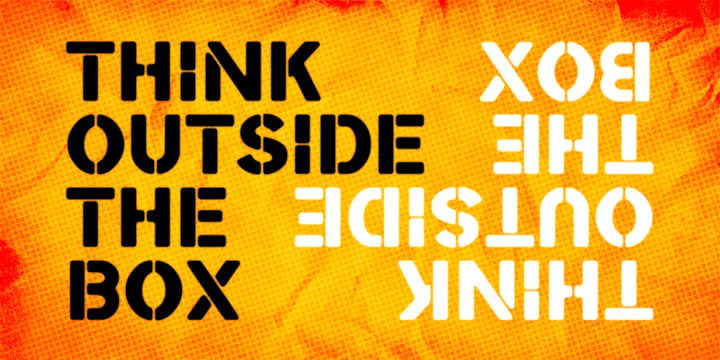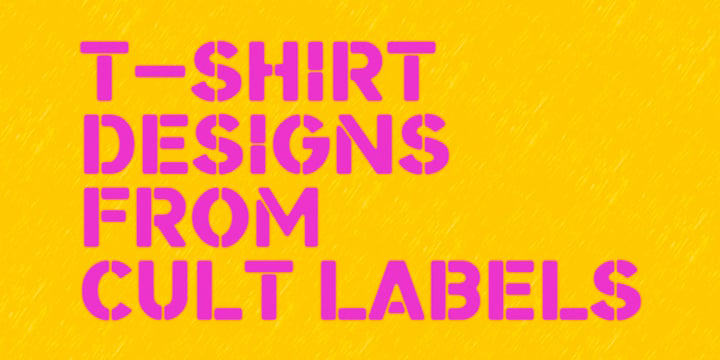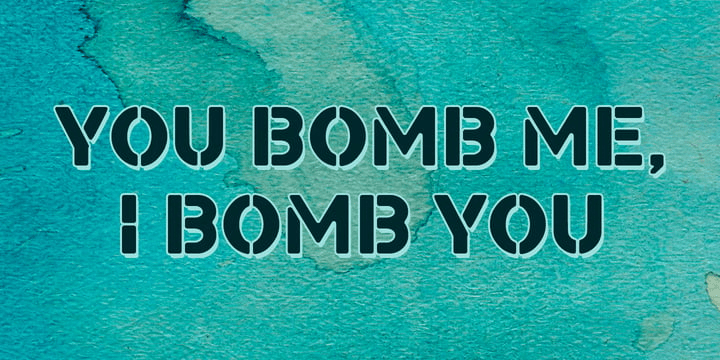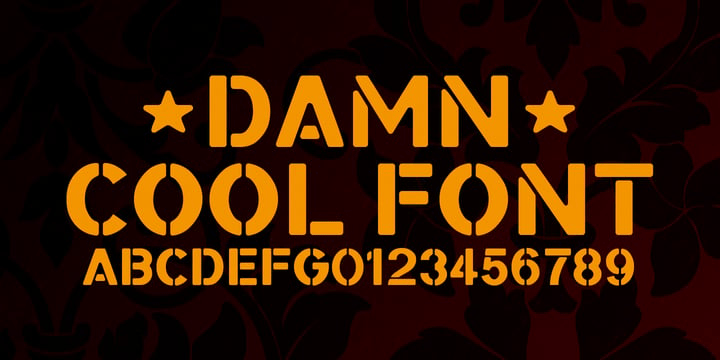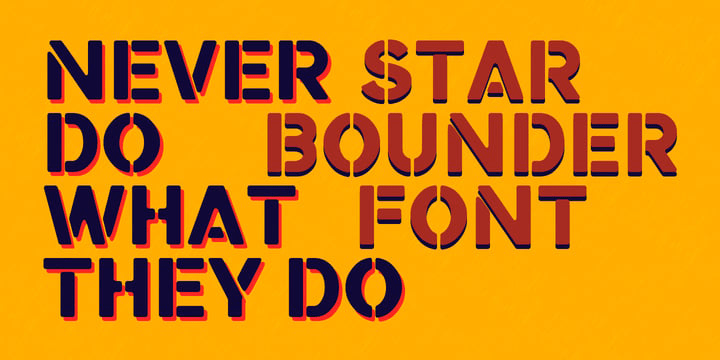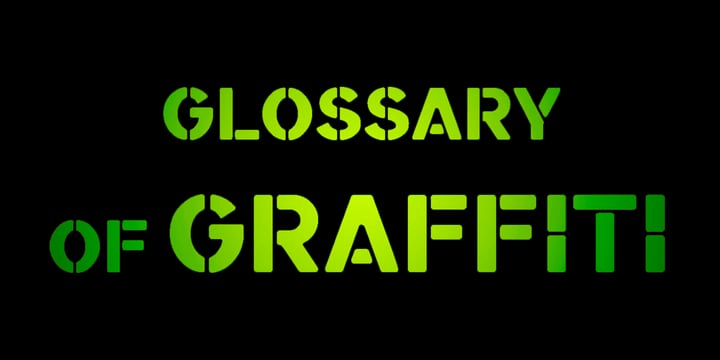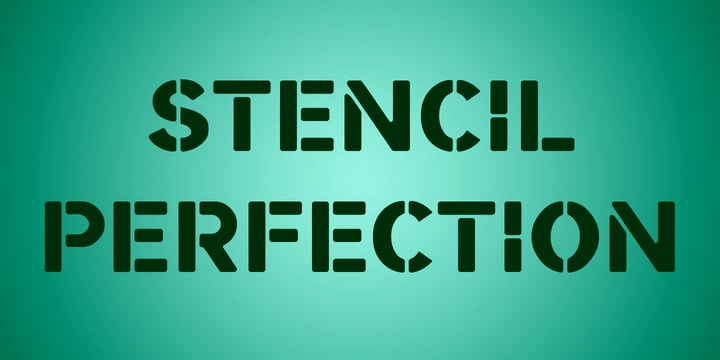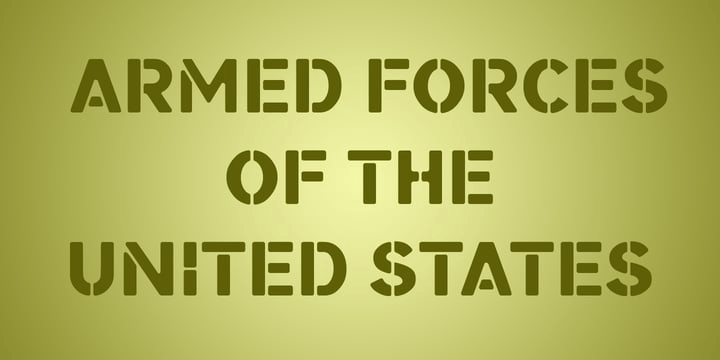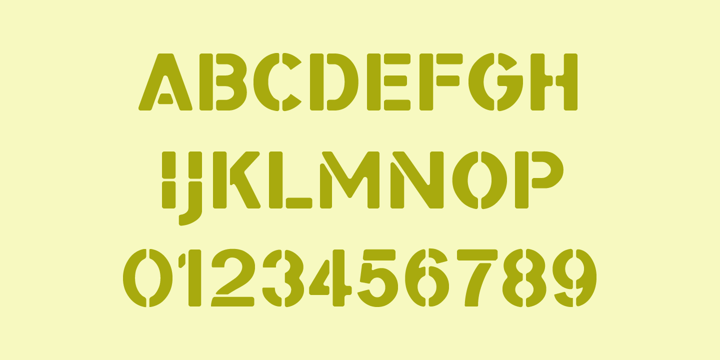
Starbounder
Kustomtype's ?Starbouder? font is a cool stencil font family with a regular & oblique version. It contains all upper & lower cases.
The ?Starbouder? family is coordinated into letterforms, metrics, and weights to work better together.
Why still looking for cool and decorative army, stencil and graffiti fonts for your posters, advertising, text, design, artwork, headtext, editoral design, magazines, etc.
?Starbouder is a decorative stencil & graffiti font?